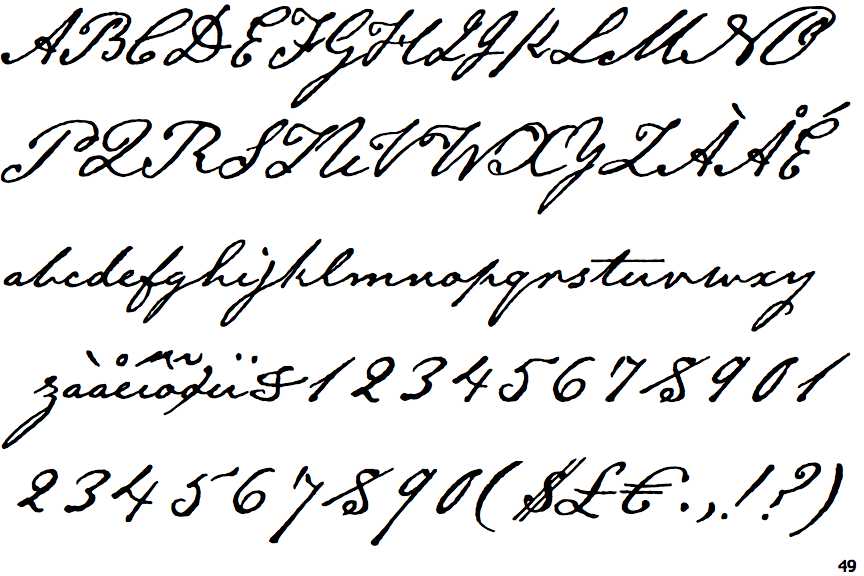
Emily Austin Font
Emily Austin Font - Votes, rated based on results identification. Web buy emily austin regular desktop font from three islands press on fonts.com. Web emily austin™ replicates the hand of texas pioneer woman emily austin perry in letters she wrote her husband in the early days of.
Web emily austin™ replicates the hand of texas pioneer woman emily austin perry in letters she wrote her husband in the early days of. Votes, rated based on results identification. Web buy emily austin regular desktop font from three islands press on fonts.com.
Web emily austin™ replicates the hand of texas pioneer woman emily austin perry in letters she wrote her husband in the early days of. Web buy emily austin regular desktop font from three islands press on fonts.com. Votes, rated based on results identification.
Votes, rated based on results identification. Web buy emily austin regular desktop font from three islands press on fonts.com. Web emily austin™ replicates the hand of texas pioneer woman emily austin perry in letters she wrote her husband in the early days of.
Emily Austin Font by Three Islands Press Font Bros
Web emily austin™ replicates the hand of texas pioneer woman emily austin perry in letters she wrote her husband in the early days of. Web buy emily austin regular desktop font from three islands press on fonts.com. Votes, rated based on results identification.
Emily Austin, a Texas Pioneer Woman's Handwriting Font
Web buy emily austin regular desktop font from three islands press on fonts.com. Web emily austin™ replicates the hand of texas pioneer woman emily austin perry in letters she wrote her husband in the early days of. Votes, rated based on results identification.
Emily Austin Font Fontspring
Votes, rated based on results identification. Web buy emily austin regular desktop font from three islands press on fonts.com. Web emily austin™ replicates the hand of texas pioneer woman emily austin perry in letters she wrote her husband in the early days of.
Emily Austin Regular
Web emily austin™ replicates the hand of texas pioneer woman emily austin perry in letters she wrote her husband in the early days of. Votes, rated based on results identification. Web buy emily austin regular desktop font from three islands press on fonts.com.
Web emily austin™ replicates the hand of texas pioneer woman emily austin perry in letters she wrote her husband in the early days of. Web buy emily austin regular desktop font from three islands press on fonts.com. Votes, rated based on results identification.
Web buy emily austin regular desktop font from three islands press on fonts.com. Web emily austin™ replicates the hand of texas pioneer woman emily austin perry in letters she wrote her husband in the early days of. Votes, rated based on results identification.
Web emily austin™ replicates the hand of texas pioneer woman emily austin perry in letters she wrote her husband in the early days of. Web buy emily austin regular desktop font from three islands press on fonts.com. Votes, rated based on results identification.
Votes, rated based on results identification. Web emily austin™ replicates the hand of texas pioneer woman emily austin perry in letters she wrote her husband in the early days of. Web buy emily austin regular desktop font from three islands press on fonts.com.
Web buy emily austin regular desktop font from three islands press on fonts.com. Web emily austin™ replicates the hand of texas pioneer woman emily austin perry in letters she wrote her husband in the early days of.